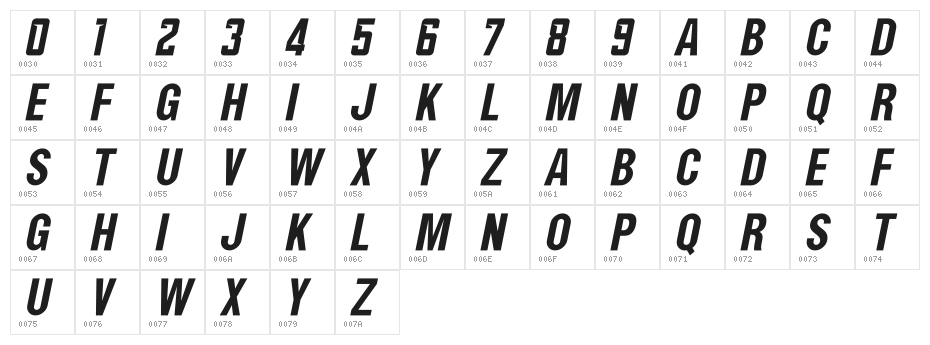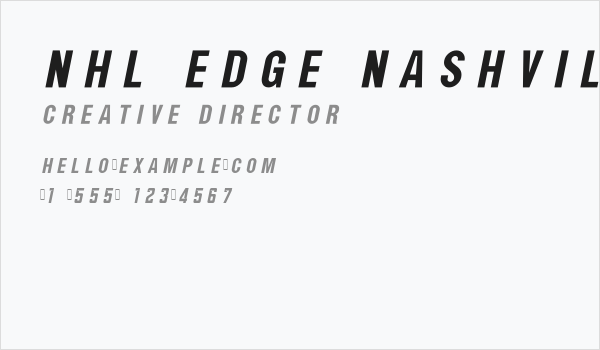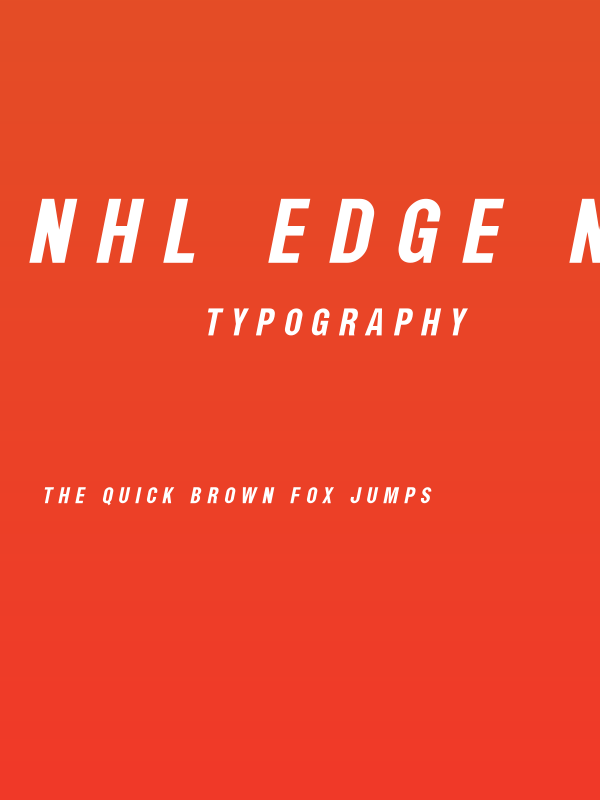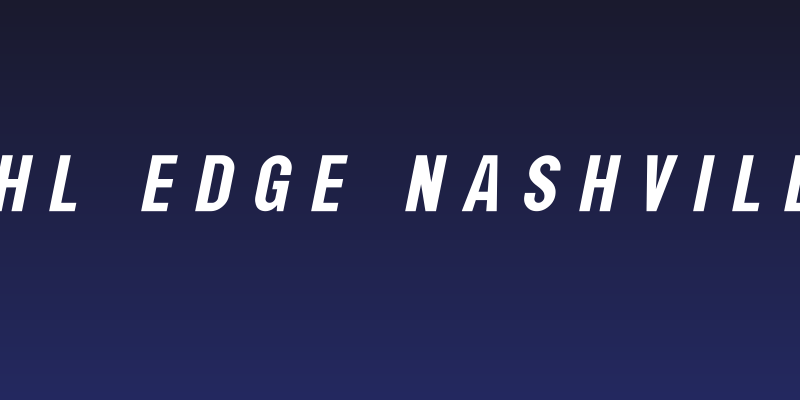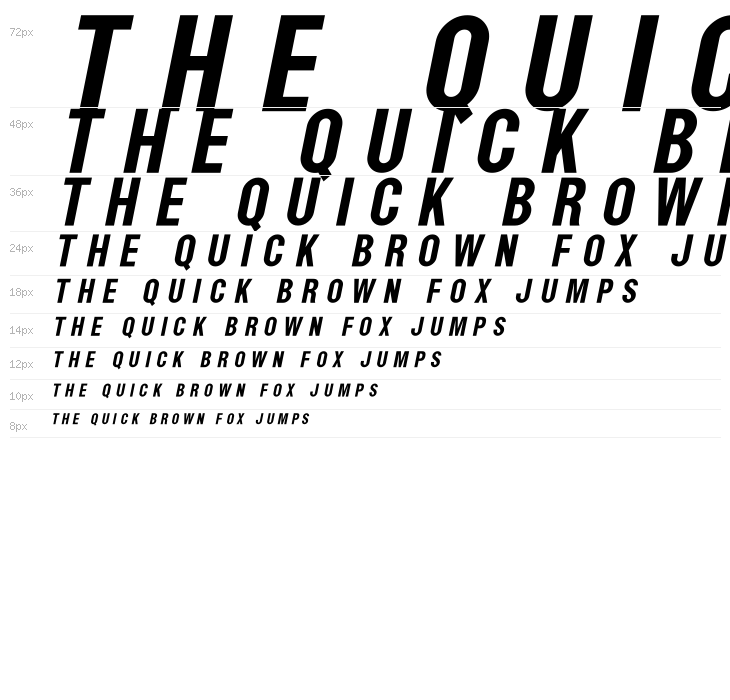
NHL Edge Nashville Font
NHL Edge Nashville Description
This font features a bold, italicized style with a strong, dynamic presence. The characters are slightly condensed, giving them a sleek and modern appearance. The uppercase and lowercase letters maintain a consistent slant, enhancing the font's energetic and forward-moving aesthetic. The numbers are equally bold and italicized, ensuring uniformity across all characters. The special characters, although not visible, are likely designed to match the overall style. This font is ideal for projects that require a bold statement, such as sports branding or dynamic advertising.
| Proposed Projects | Ideal for sports branding, dynamic advertising, and energetic graphic design. |